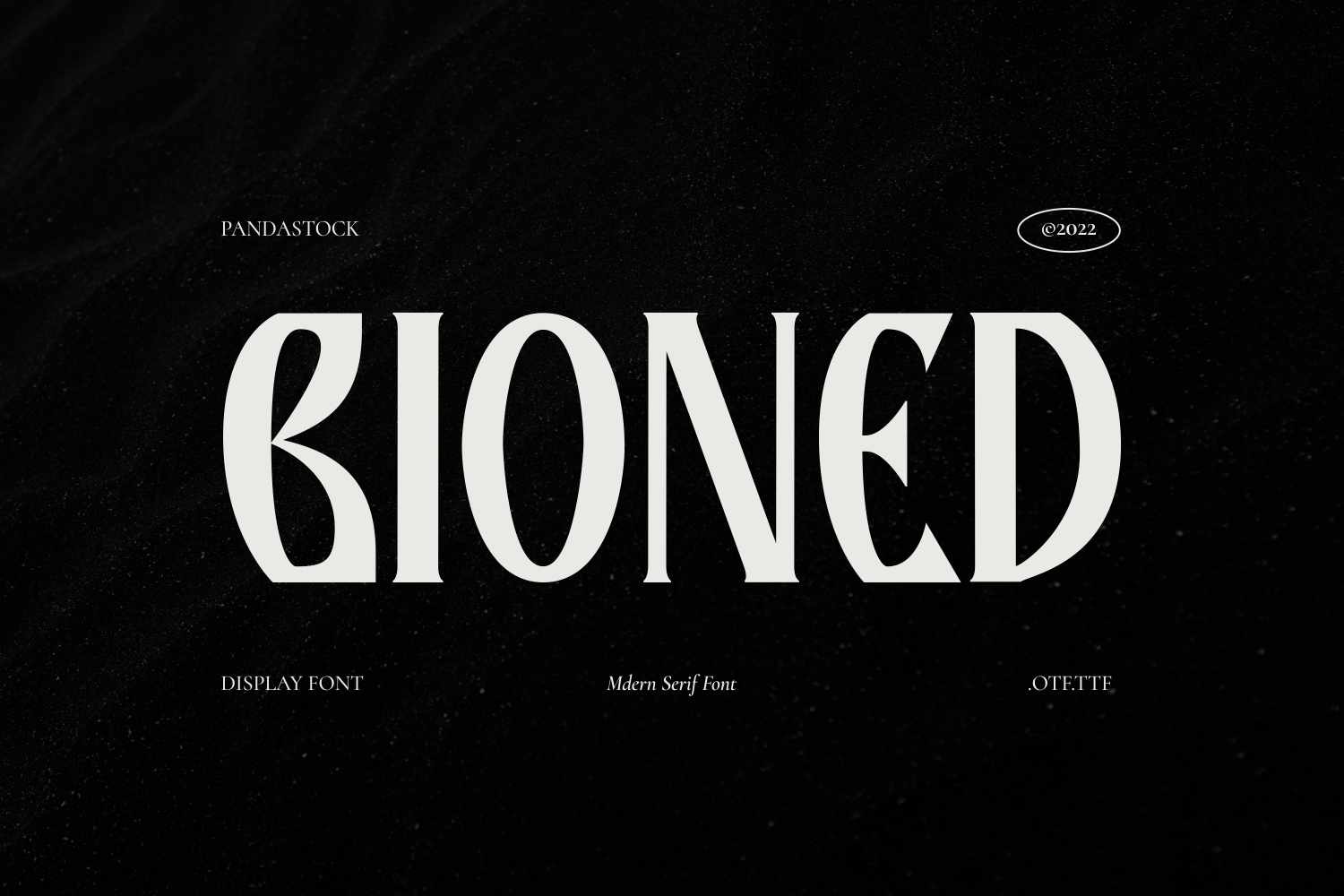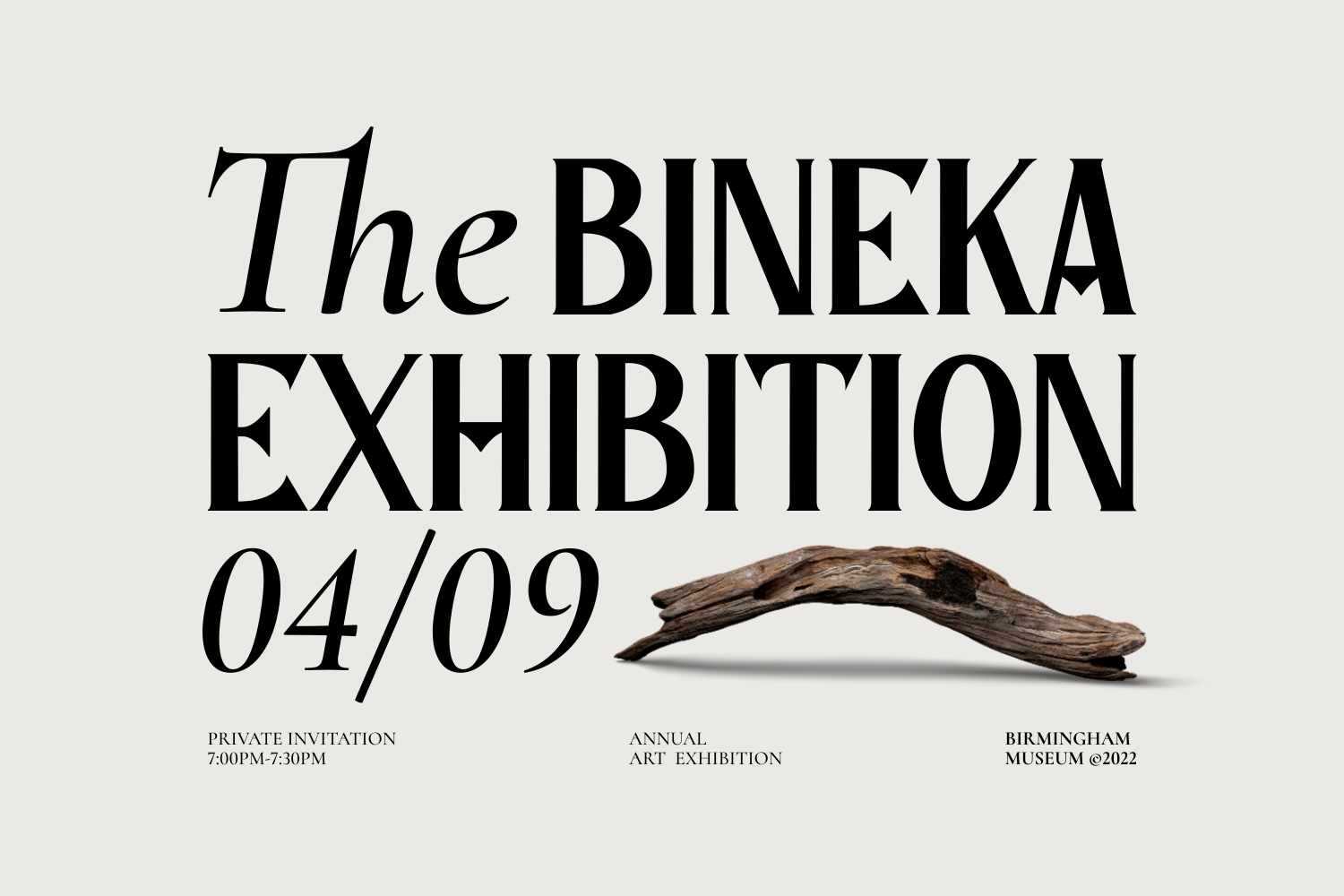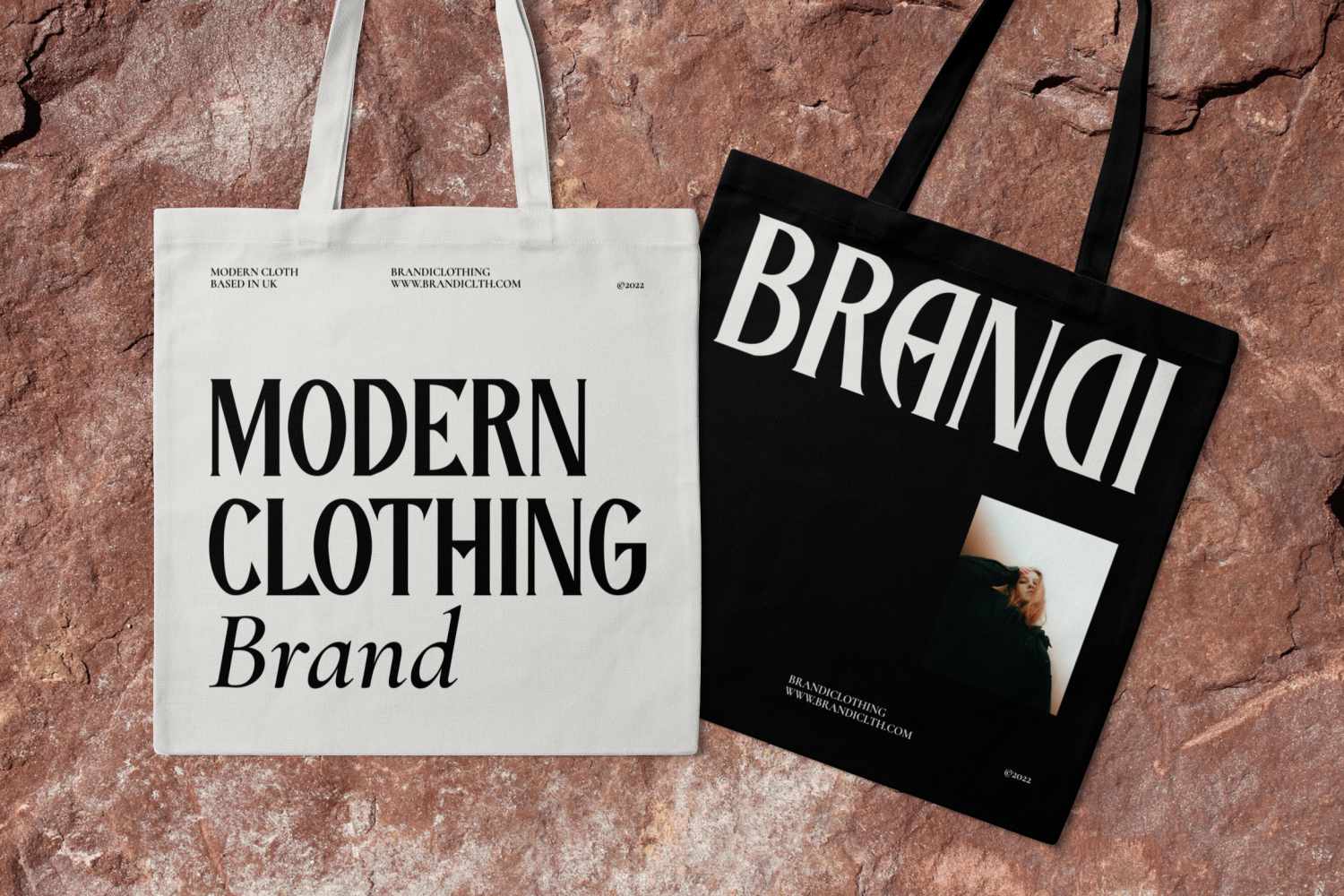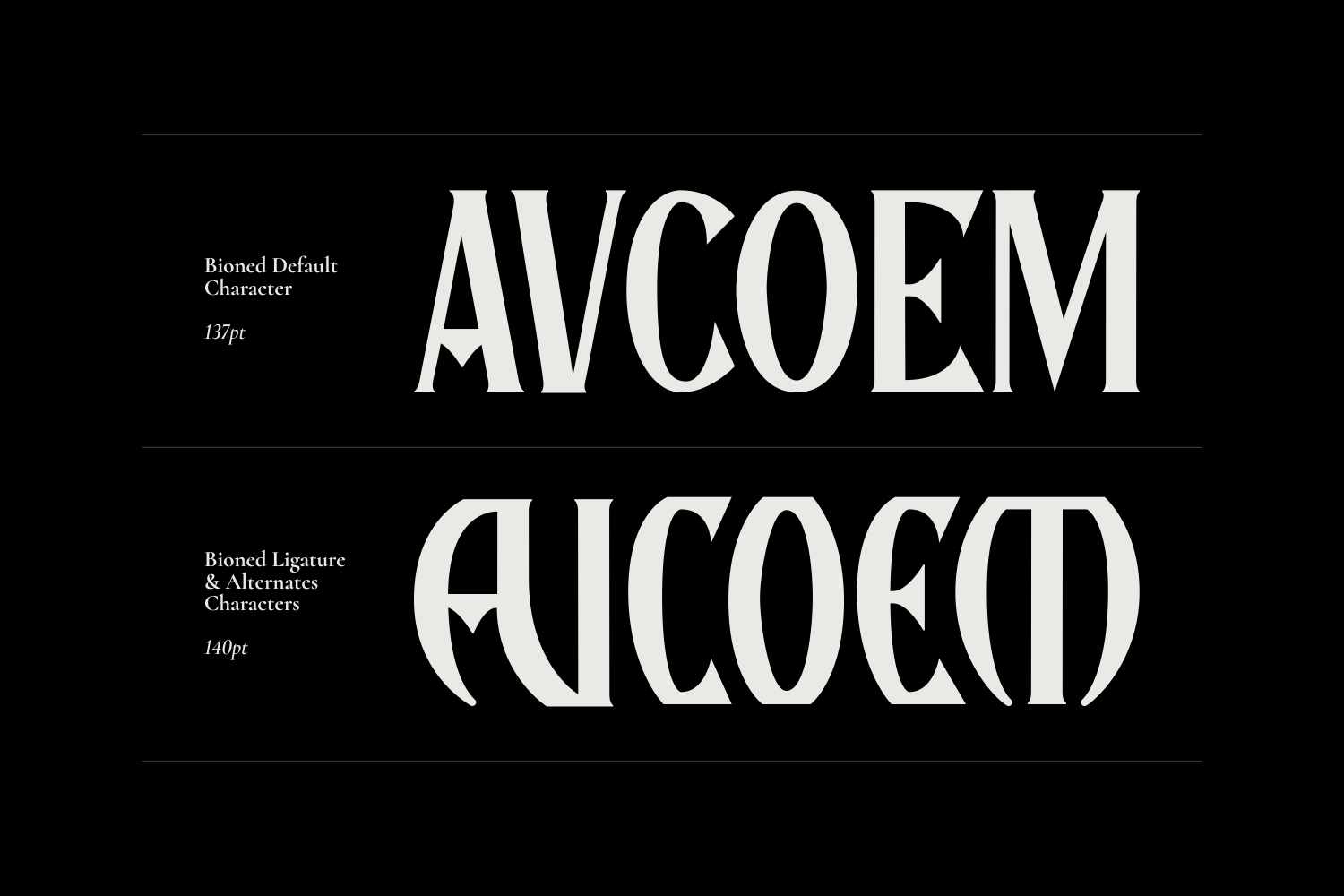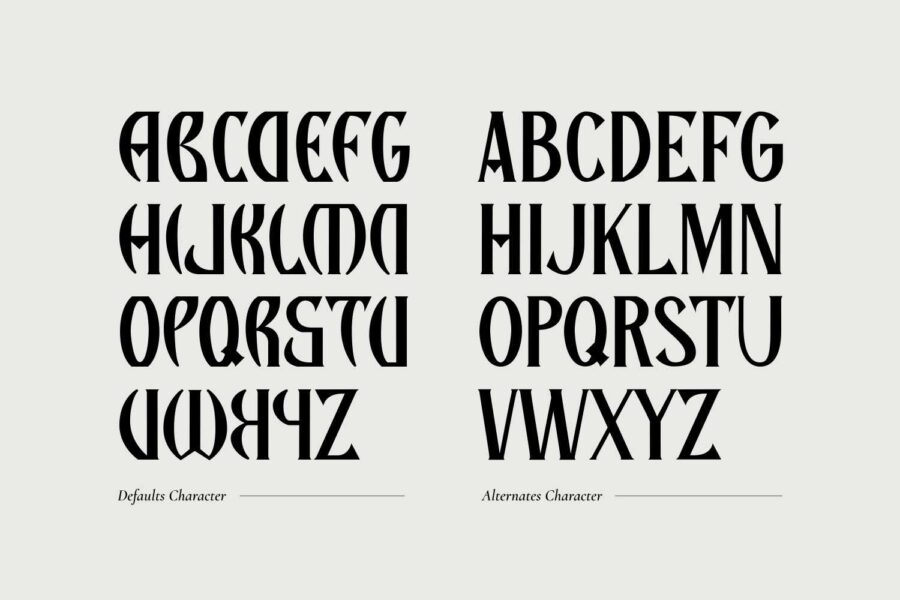
Bioned is a modern serif display font with bold shapes and sharp details that create a striking and contemporary impression. Its unique character design, featuring stylish alternates and ligatures, gives every project a sophisticated edge while maintaining readability. Inspired by editorial typography and high-fashion aesthetics, Bioned is ideal for designers looking to blend elegance with a modern twist.
Perfect for branding, magazine layouts, packaging, invitations, and artistic posters, Bioned offers versatility and creative flair. Its refined forms and stylish alternates allow you to experiment with different looks, making it suitable for luxury brands, fashion campaigns, and creative editorial projects. With Bioned, your design will exude confidence and timeless sophistication.
Bioned